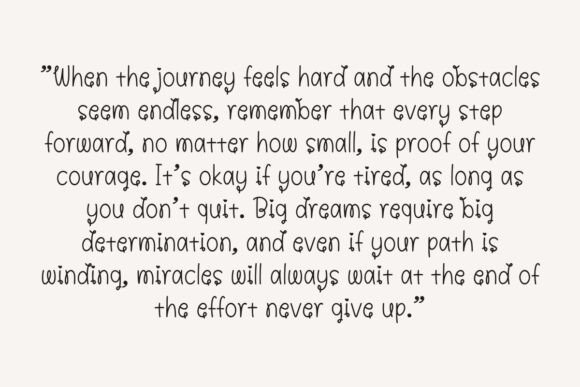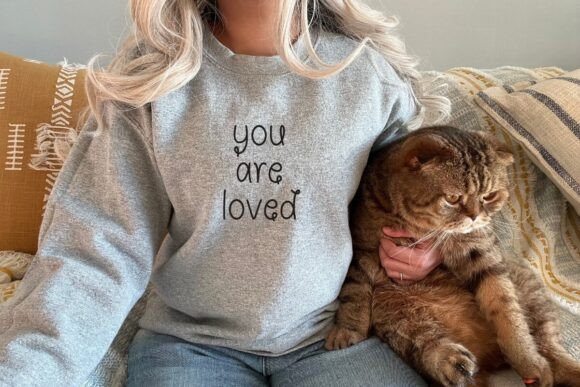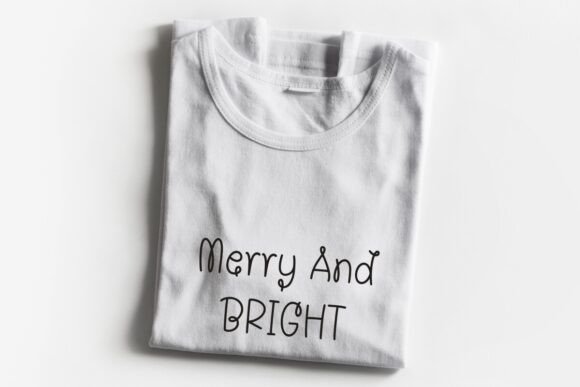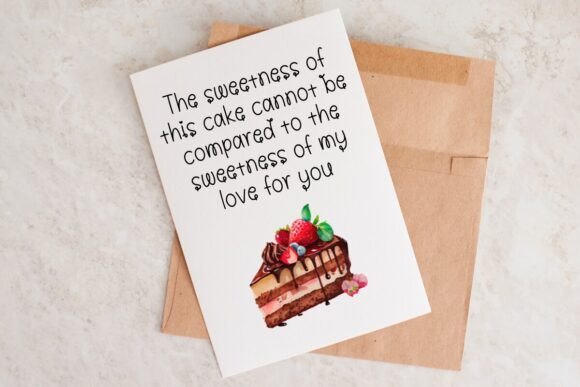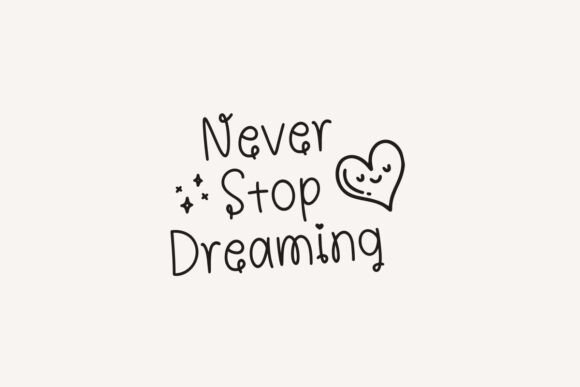
Cupid’s Notes Font: The Perfect Handwritten Style for Creative Projects
Are you looking for a font that can add a personal touch to your creative projects? Look no further than Cupid’s Notes Font, a cute handwritten font that is sure to capture the hearts of designers and crafters alike. In this article, we’ll take a closer look at what makes Cupid’s Notes so special and how you can use it to elevate your designs.
What is Cupid’s Notes Font?
Cupid’s Notes is a beautiful handwritten font that mimics natural handwriting with smooth and slightly curved strokes, giving it a personal and intimate impression. The font is characterized by adorable elements such as rounded letter edges, tiny decorations, and playful curves that make it perfect for creative projects. Whether you’re designing party invitations, diaries, greeting cards, or social media graphics, Cupid’s Notes is sure to add a touch of whimsy and charm.
Features of Cupid’s Notes Font
So, what makes Cupid’s Notes Font so special? Here are just a few of its key features:
- Handwritten style: Cupid’s Notes has a natural, handwritten look that is sure to add a personal touch to your designs.
- Smooth and curved strokes: The font features smooth and slightly curved strokes that give it a soft and feminine look.
- Rounded letter edges: The rounded edges of the letters add to the font’s playful and whimsical feel.
- Tiny decorations: The font includes tiny decorations and playful curves that add to its charm.
Uses for Cupid’s Notes Font
Cupid’s Notes Font is perfect for a wide range of creative projects, including:
- Party invitations: Add a touch of whimsy to your party invitations with Cupid’s Notes Font.
- Diaries and journals: Use Cupid’s Notes to create a personal and intimate feel for diaries and journals.
- Greeting cards: The font is perfect for creating adorable greeting cards for special occasions.
- Social media designs: Use Cupid’s Notes to add a playful touch to your social media graphics and posts.
- Branding products for children and teenagers: The font is perfect for creating fun and playful branding products for kids and teens.
Why Choose Cupid’s Notes Font?
So, why choose Cupid’s Notes Font for your creative projects? Here are just a few reasons:
- Unique and playful style: Cupid’s Notes has a unique and playful style that is sure to stand out from the crowd.
- Easy to read: Despite its playful style, Cupid’s Notes is easy to read and understand.
- Versatile: The font is versatile and can be used for a wide range of creative projects.
- Adorable elements: The font’s adorable elements, such as rounded letter edges and tiny decorations, add to its charm.
Tips for Using Cupid’s Notes Font
Here are a few tips for using Cupid’s Notes Font in your creative projects:
- Use it for headlines and titles: Cupid’s Notes Font is perfect for headlines and titles, where its playful style can really shine.
- Pair it with other fonts: Consider pairing Cupid’s Notes with other fonts to create a unique and interesting look.
- Experiment with colors and textures: Don’t be afraid to experiment with different colors and textures to add depth and interest to your designs.
Cupid’s Notes Font is a beautiful and playful handwritten font that is perfect for creative projects. With its smooth and curved strokes, rounded letter edges, and tiny decorations, it’s sure to add a touch of whimsy and charm to your designs. Whether you’re a designer or crafter, Cupid’s Notes is a great choice for anyone looking to add a personal touch to their projects. So why not give it a try and see what amazing creations you can come up with?